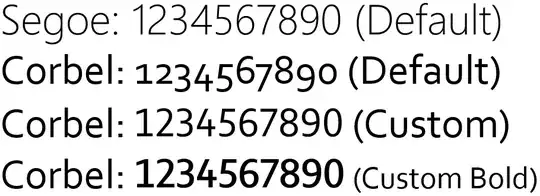
Some fonts, for example Corbel, include several number forms: lining figures where the numerals are the same height as a capital letter and old-style or text figures where the numerals have varying heights and blend in with lowercase text. For example, in the following snippet the line in Segoe uses lining figures while the line in Corbel uses its default number form, old-style figures:
lining and text figures
(N.B. The text in that snippet is unimportant, it is just illustrative of the different height of the numerals.)
I have discovered from this article via an answer on the Graphic Design SE that I can change between the number forms in Word using the advanced tab of the font dialog:
Screenshot form Word
QUESTION: How do I select Corbel's lining figures in PowerPoint?
• From my tests in the answer I deleted, I believe that the only solution is to choose your fonts with care, as some of them handle numerals in one way and the others in the opposite way. I don't think anything has changed in PowerPoint 2013. – harrymc Nov 22 '14 at 15:34
• @harrymc Corbel handles them both ways, but the trouble is switching between them within PowerPoint. – dumbledad Nov 22 '14 at 15:58
The short answer is, you can't. Not at the moment, anyway.
Microsoft has yet to introduce support for advanced typographical features for OpenType fonts for PowerPoint and Excel. Microsoft Word however, does "support a limited set of OpenType features"
From this old HowToGeek article (this is apparently the one you linked in your question) I assume these features are available in Word, Outlook and Publisher.
However, according to this Office Support article, it is only available in Microsoft Word.
Source: OpenType features article (practicaltypography.com)
EDIT: I found a workaround
While you can't enable OpenType features for a font in PowerPoint, you can however edit said font and create a new subset of the original containing glyphs for only the digits and use the edited font when you need to type numbers in PowerPoint.
Here's the result after about 15 minutes of editing the Corbel font online at IcoMoon Corbel Edited - Icomoon.io
You'll need to first convert the TrueType (TTF) font to SVG and then import the SVG file at IcoMoon. After that, select the glyphs for the numbers you wish to edit (make sure you choose the appropriate icons from the list as it is important to get this right. Check the height of the numbers for assistance. Look for icons that are centered) select the icons you wish to edit and click on the pencil icon and move each number down by 6 points using the Move Down button.
(this is largely a trial and error process. You might need to experiment here. It helps to modify a few glyphs, download the font and preview them to see if you've got it right.)
edit glyph
After that, click on Generate Font and associate each glyph with the correct Unicode code point or simply associate them with the correct number by entering 0 through 9 in the boxes to the right.
associate glyphs with correct Unicode values
Finally, download the font, install it and use it to type the numbers.
Another option is to use LibreOffice Impress, the presentation software in that F/OSS office suite.
It will read/write PPT and PPTX files (more complete success with former than latter, in my experience). It will allow you to configure the font option this way:
• select the text you want to have "lining numbers" for;
• click in the font-name dropdown, and add :lnum=1 or, in more recent versions of LibreOffice, :+lnum to the font name (Corbel, in OP's case);
• hit "Enter", and done!
It will look something like this:
screenshot
And you will have lining numbers in your Impress presentation. It isn't a Powerpoint solution, but it is worth knowing about. Powerpoint does enjoy many other features lacking in Impress, so it's a matter of trade-off when judging which is the better software in a given case.
(And worth knowing, too, that Impress will allow for embedding fonts in the presentation, which Mac Powerpoint will not do.)
Note that if you wish to add further opentype styles, use ampersand: e.g. :+lnum&smcp to add also small caps.
PowerPoint apparently shows each font with its own default numerals lining option. In the below example the above is displayed in Calibri and below in Corbel font, and the numerals are handled differently :
image1
I therefore believe that choosing your fonts with care is the only way to change numerals lining in PowerPoint, based on the tests detailed below.
I went as far as embedding a Word object in PowerPoint and copying into it text that used the same font but with different advanced lining options, and got at first this perfect display :
My tests were done using PowerPoint 2010 and remain to be verified with PowerPoint 2013, but I do not believe that numerals lining in implemented at all in the PowerPoint display engine. I think it is a horrible idea for Word and PowerPoint to use different display engines for text, but this is the way it apparently works. As both seem to use the same Office Open XML document format, as seen from the fact that Word can pick up where it left off, this is even more lamentable.